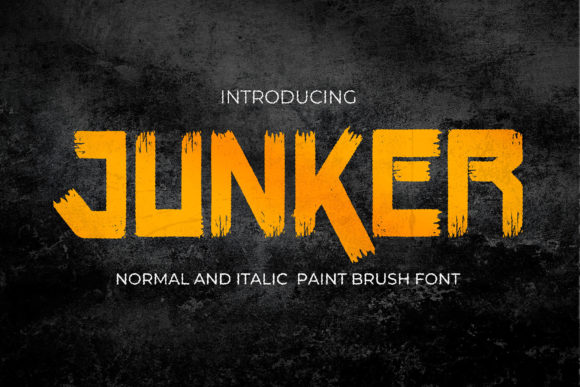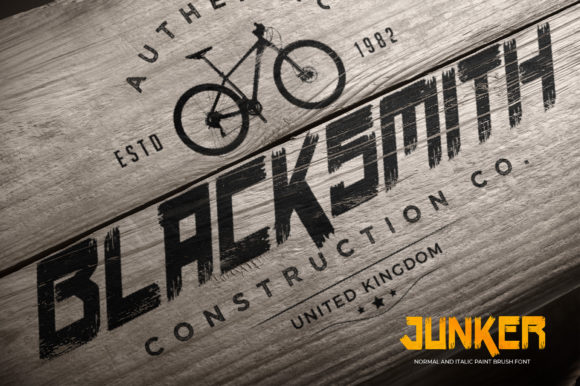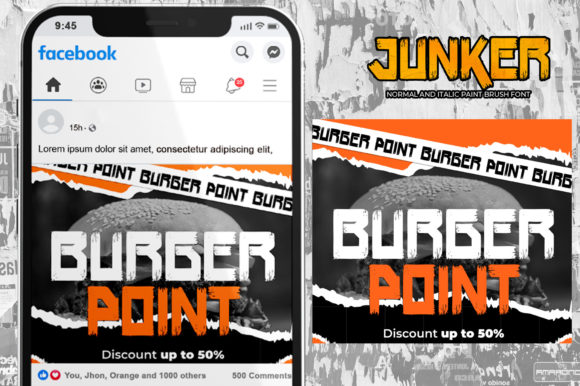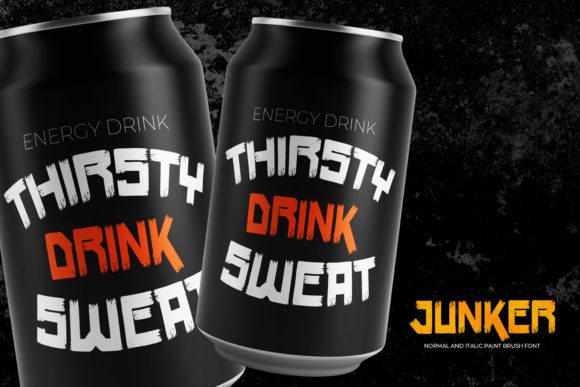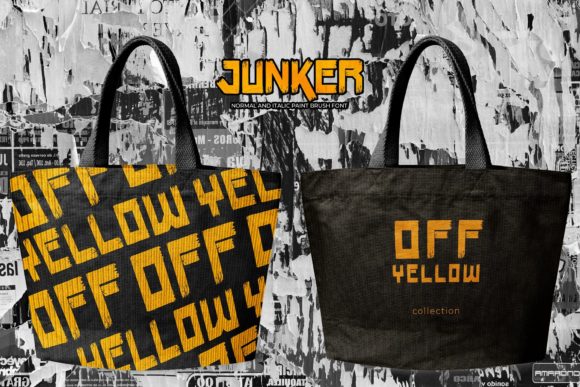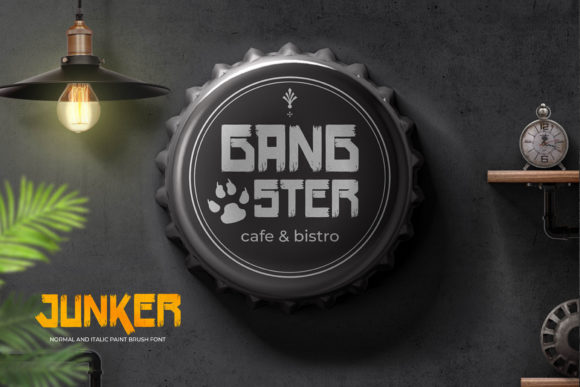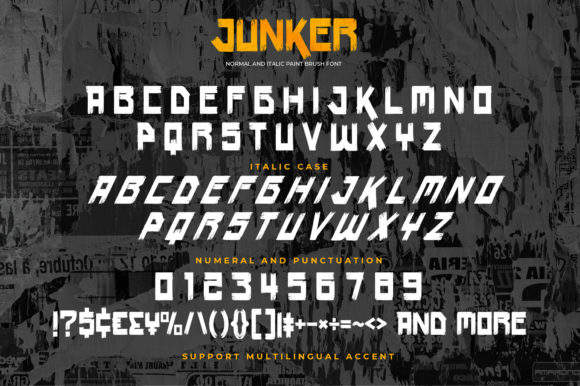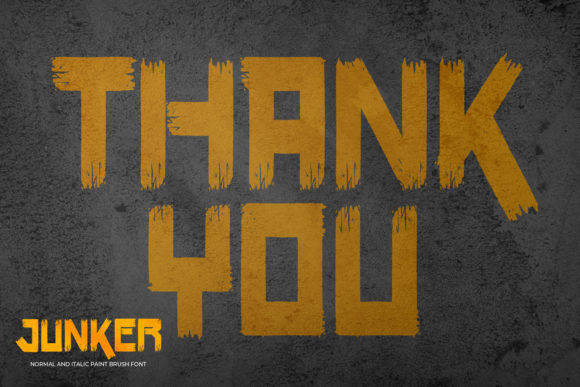
Junker Font
About Junker Font
Junker is an italic paint brush font with a natural style and dramatic movement. This font is great for creative projects like logos, printed quotes, invitations, cards, product packaging, headers, logotypes, letterhead, posters, or labels.